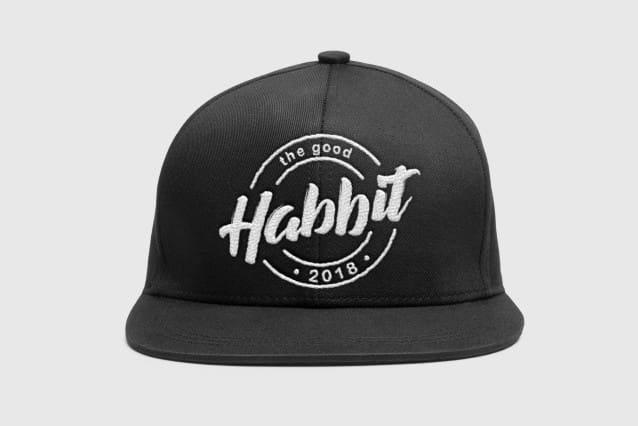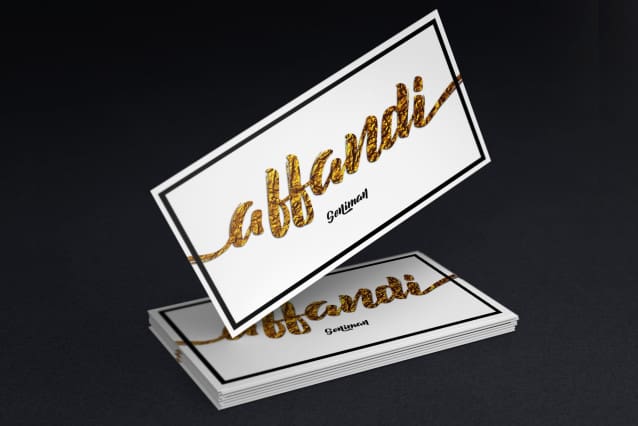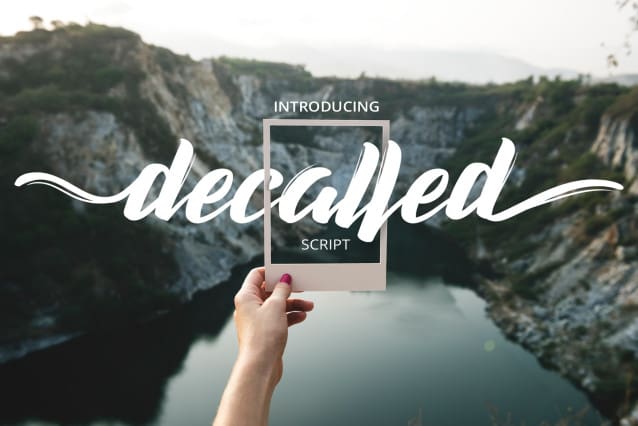
Decalled Script Font
Decalled Script Font is a sharp, elegant font. It features OpenType features, include upper and lower case characters and all features you can expect from a cute script like this.